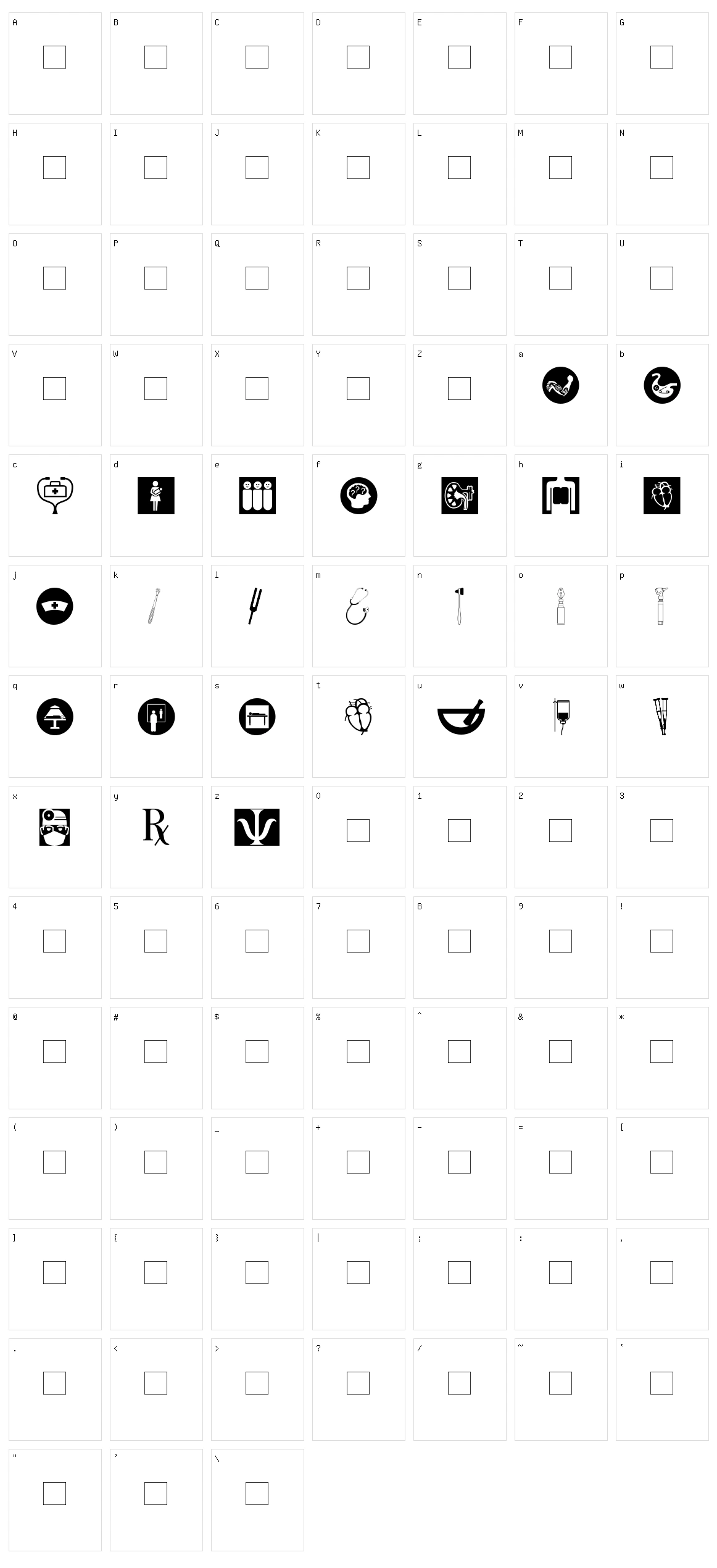
Subj: Medical Symbols Font (Type 1)
AUTHOR: Jim Chiello
Medical Symbols Font is a sample collection of 26 (a thru z) public domain
medical symbols. They should find lots of applications in healthcare